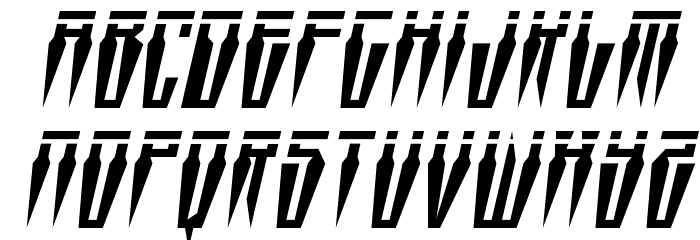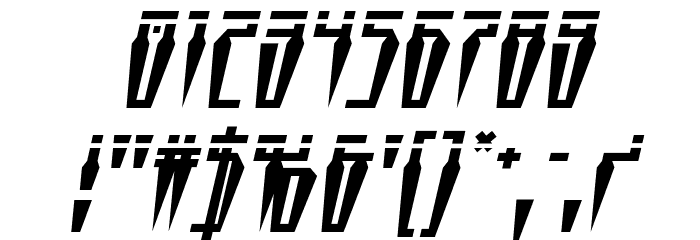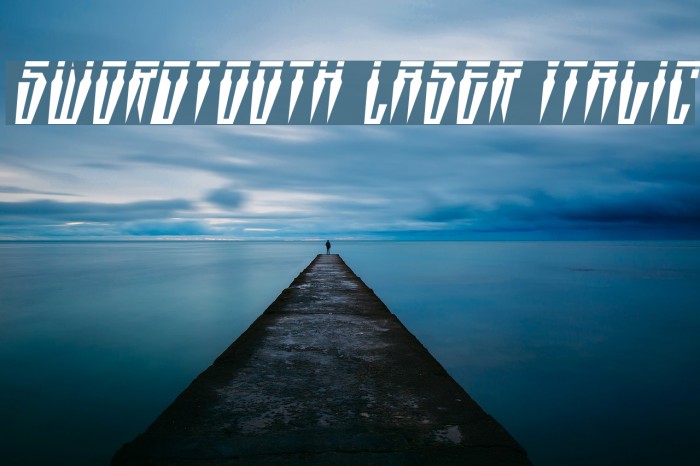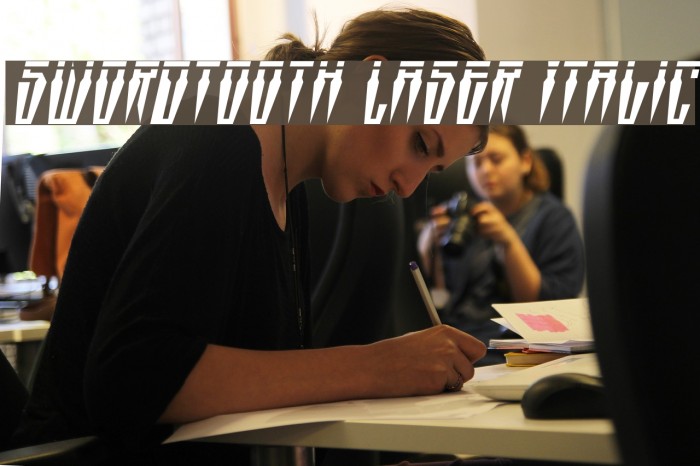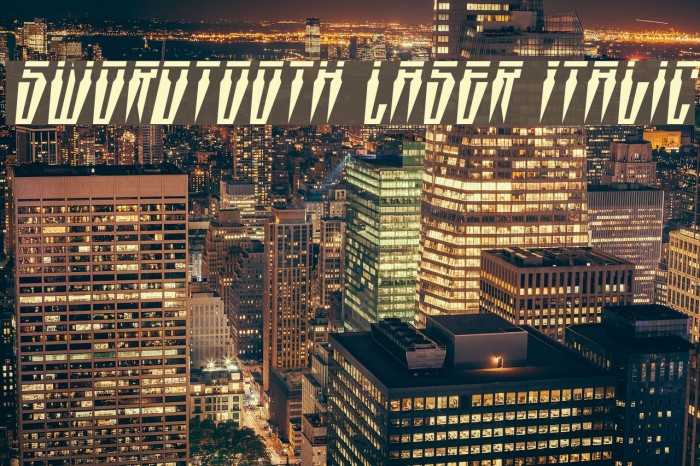
Swordtooth Laser Italic Font
This font features a bold and futuristic design with sharp, angular edges and a distinct italic slant. The characters are highly stylized, resembling blades or shards, which gives the font a dynamic and aggressive appearance. The uppercase and lowercase letters maintain a consistent style, with exaggerated points and a sense of motion. Numbers and special characters follow the same design principles, ensuring uniformity across all glyphs. The font's unique aesthetic makes it stand out, ideal for projects that require a modern and edgy look.
A bold, futuristic font with sharp, angular edges and an italic slant.
- Proposed Projects: Ideal for sci-fi themed projects, video game titles, movie posters, and edgy branding.